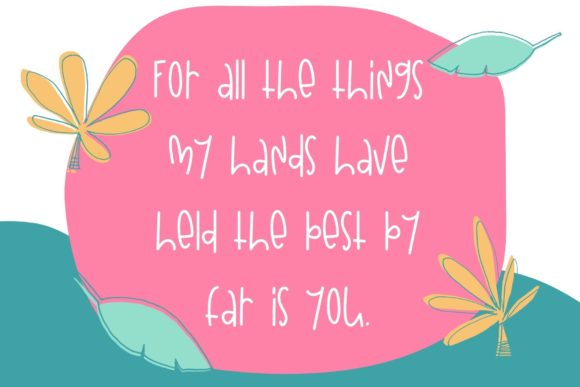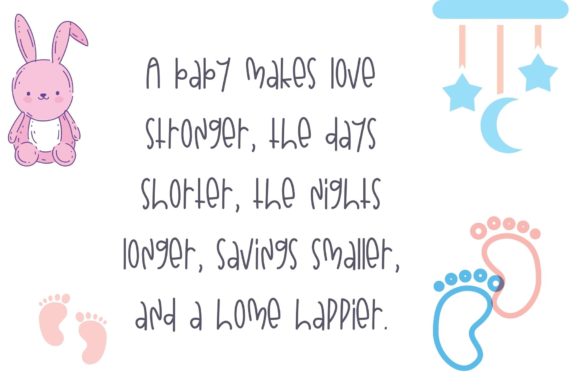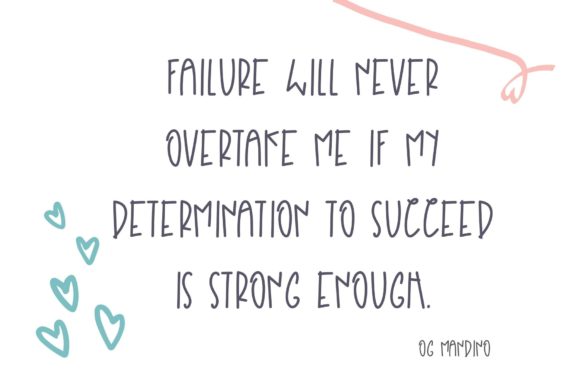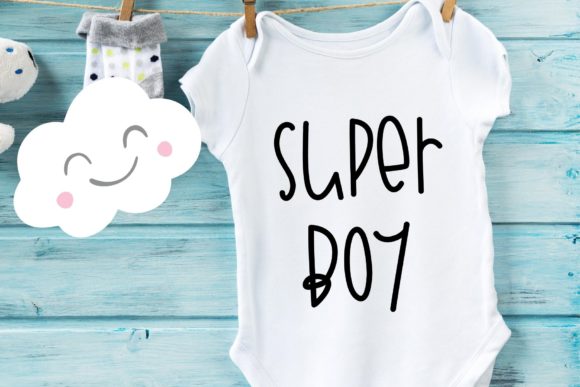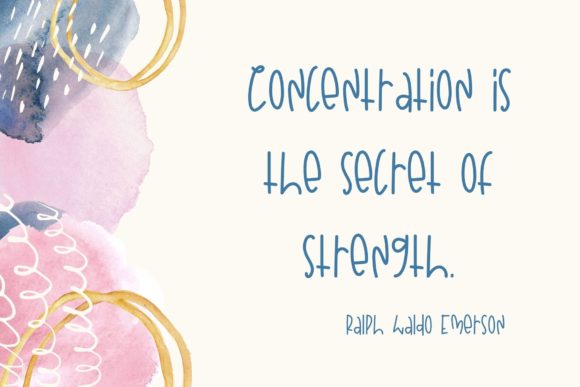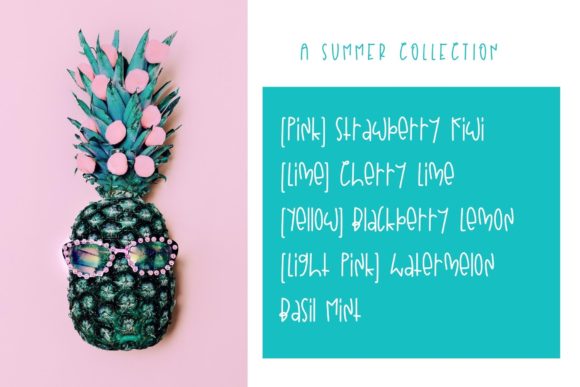
Introducing Emma Baby Shower Font: The Perfect Addition to Your Design Collection
Are you a designer, crafter, or DIY enthusiast looking for a unique and versatile font to elevate your creative projects? Look no further than the Emma Baby Shower Font! This adorable handwritten font is perfect for creating a wide range of designs, from wedding invitations and stationery to social media posts and more.
What Makes Emma Baby Shower Font So Special?
The Emma Baby Shower Font is a cute and quirky handwritten font that is sure to capture your heart. Its incredibly versatile style makes it perfect for a variety of design projects, including:
- Wedding invitations and stationery: Create beautiful and unique wedding invitations, save-the-date cards, and other stationery with this lovely font.
- Social media posts: Add a touch of personality to your social media posts with this eye-catching font.
- Stationery art: Use Emma Baby Shower Font to create gorgeous stationery art, including greeting cards, gift tags, and more.
- Crafting projects: This font is perfect for crafters who love to create handmade cards, scrapbook pages, and other paper crafts.
Key Features of Emma Baby Shower Font
Here are some key features that make Emma Baby Shower Font a must-have for designers and crafters:
- Handwritten style: Emma Baby Shower Font has a beautiful, handwritten style that adds a personal touch to any design.
- Versatile: This font is incredibly versatile and can be used for a wide range of design projects.
- Cute and quirky: The Emma Baby Shower Font has a playful, quirky feel that’s perfect for creating unique and eye-catching designs.
- Easily readable: Despite its handwritten style, Emma Baby Shower Font is easily readable, making it perfect for body text and headlines.
How to Use Emma Baby Shower Font in Your Designs
Using Emma Baby Shower Font in your designs is easy! Here are a few tips to get you started:
- Pair it with other fonts: Emma Baby Shower Font pairs well with other fonts, including serif and sans-serif fonts. Try pairing it with a bold font for a striking contrast.
- Experiment with colors: This font looks great in a variety of colors, from bright and bold to soft and pastel.
- Add embellishments: Consider adding embellishments, such as flowers or other graphics, to give your designs an extra special touch.
Here are a few tips for designers and crafters who want to get the most out of Emma Baby Shower Font:
- Use it for branding: Emma Baby Shower Font is perfect for branding projects, including logos, business cards, and more.
- Create a cohesive look: Use Emma Baby Shower Font across multiple design projects to create a cohesive look and feel.
- Experiment with different sizes: This font looks great in a variety of sizes, from small and delicate to large and bold.
In conclusion, Emma Baby Shower Font is a must-have for designers and crafters who want to add a touch of personality to their designs. Its cute and quirky handwritten style, versatility, and ease of use make it perfect for a wide range of design projects. Whether you’re creating wedding invitations, social media posts, or stationery art, Emma Baby Shower Font is sure to become a favorite in your design collection.